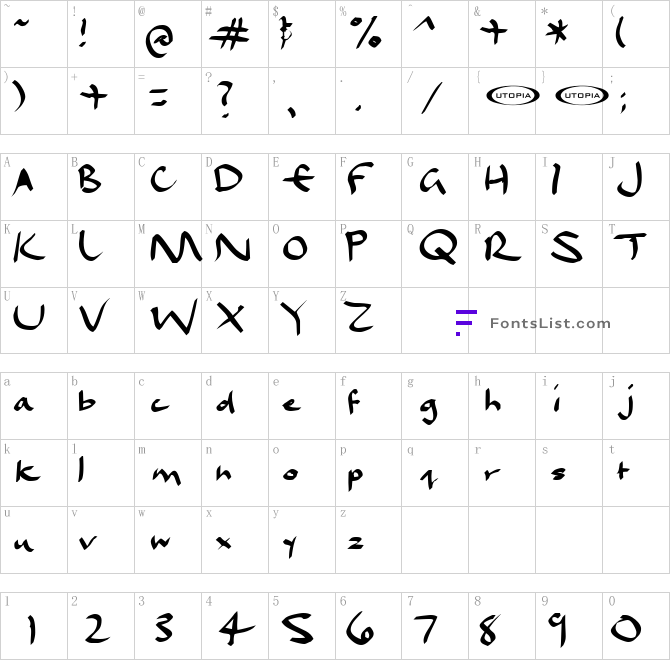
• Font Name:Dael Calligraphy
Dael-Calligraphy.ttf is a very beautiful artistic font, Dael-Calligraphy.ttf is widely used in the design and printing of various books and pictures,Dael-Calligraphy.ttf has a strong visual impact,Dael-Calligraphy.ttf is a commonly used font in newspapers, magazines and books, and is used in posters, e-commerce Poster design, store design, logo design, font design and other fields.Dael-Calligraphy.